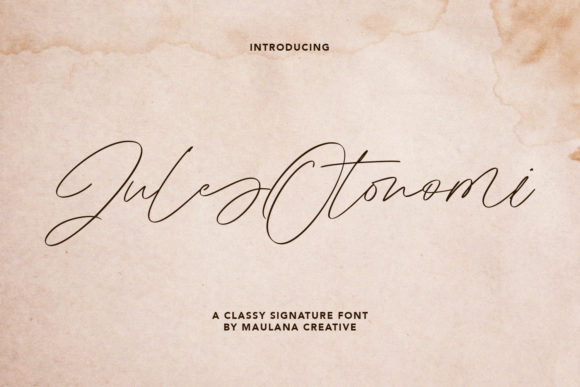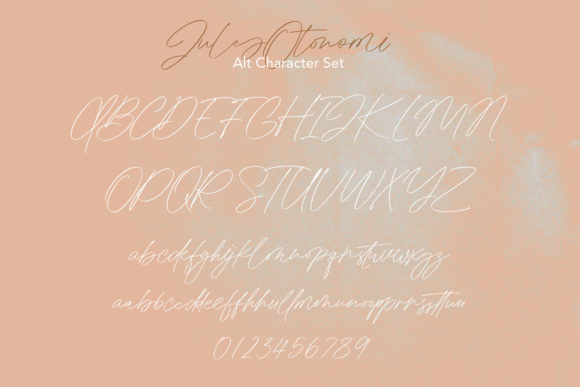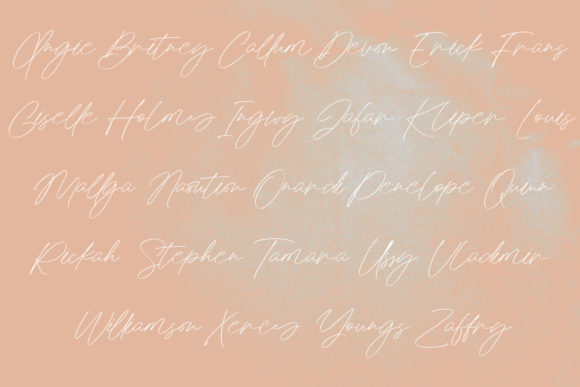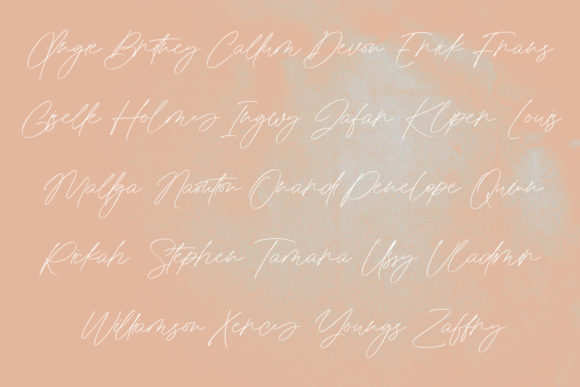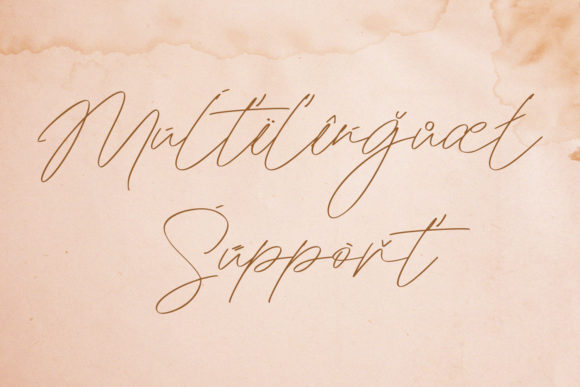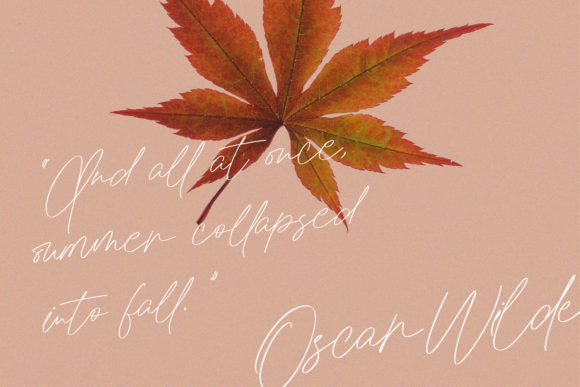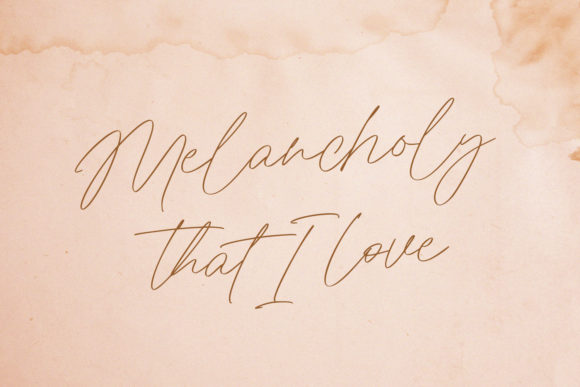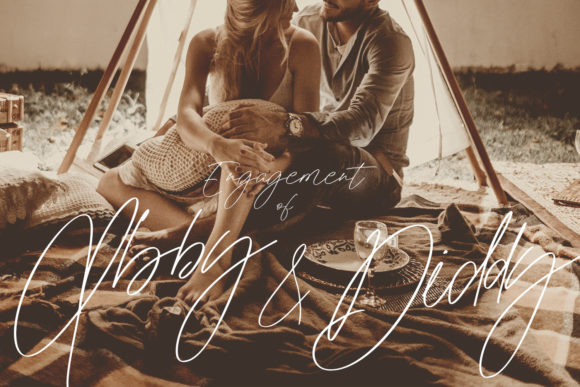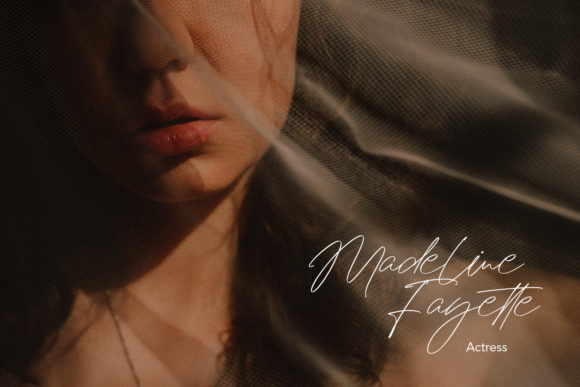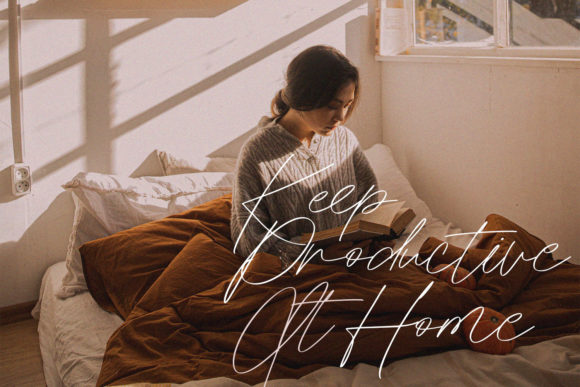
Jules Otonomi Font
Jules Otonomi is an exquisite and refined script font that exudes elegance, sophistication, and a touch of glamour. Its chic and stylish design makes it a perfect choice for a wide range of design projects. Whether you’re creating logos, branding materials, invitations, stationery, wedding designs, or any other creative project, Jules Otonomi will add a touch of luxury and class to your work.
With its flowing and graceful letterforms, Jules Otonomi captures attention and creates a sense of refined beauty. The carefully crafted curves and intricate details of this font make it ideal for high-end and upscale designs. Whether you’re designing for a luxury event or a premium brand, Jules Otonomi will elevate your designs and leave a lasting impression.
The versatility of Jules Otonomi is showcased through its stylish alternates and ligatures. These additional glyphs provide you with creative options to customize and embellish your designs, allowing you to create unique and personalized typography. Whether you’re looking to add flourishes, swashes, or decorative elements, Jules Otonomi offers a variety of options to make your designs truly stand out.
When it comes to branding and stationery, Jules Otonomi adds a touch of sophistication and refinement. Its elegant and modern aesthetic lends itself well to creating memorable visual identities and personalized stationery. Whether it’s a business card, letterhead, or envelope, Jules Otonomi will create a sense of elegance and professionalism.
For wedding designs and invitations, Jules Otonomi brings a romantic and luxurious vibe. Its graceful and flowing letterforms beautifully complement wedding themes and create an atmosphere of elegance and charm. From save-the-date cards to wedding invitations and place cards, Jules Otonomi will set the perfect tone for your special day.
Jules Otonomi also shines in digital media and social media posts. Its chic and stylish look grabs attention and adds a touch of sophistication to your online presence. Whether you’re creating graphics for social media campaigns, blog headers, or website banners, Jules Otonomi will make your visuals stand out and leave a lasting impression.
In summary, Jules Otonomi is a chic, refined script font that brings sophistication, elegance, and versatility to your design projects. Its stylish alternates and ligatures provide endless creative possibilities, while its graceful and modern design makes it a perfect match for any project that seeks to convey a sense of luxury and class. So, embrace the beauty of Jules Otonomi and let it add an elegant touch to your next creative endeavor.